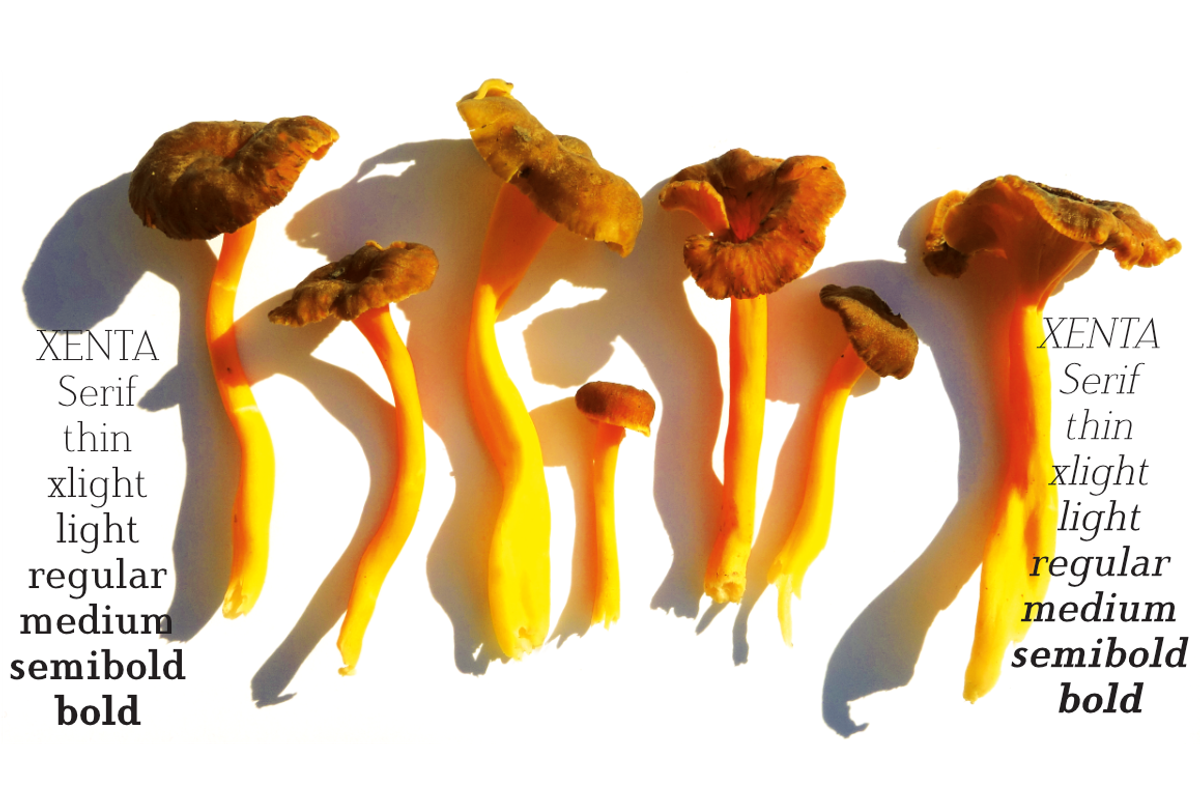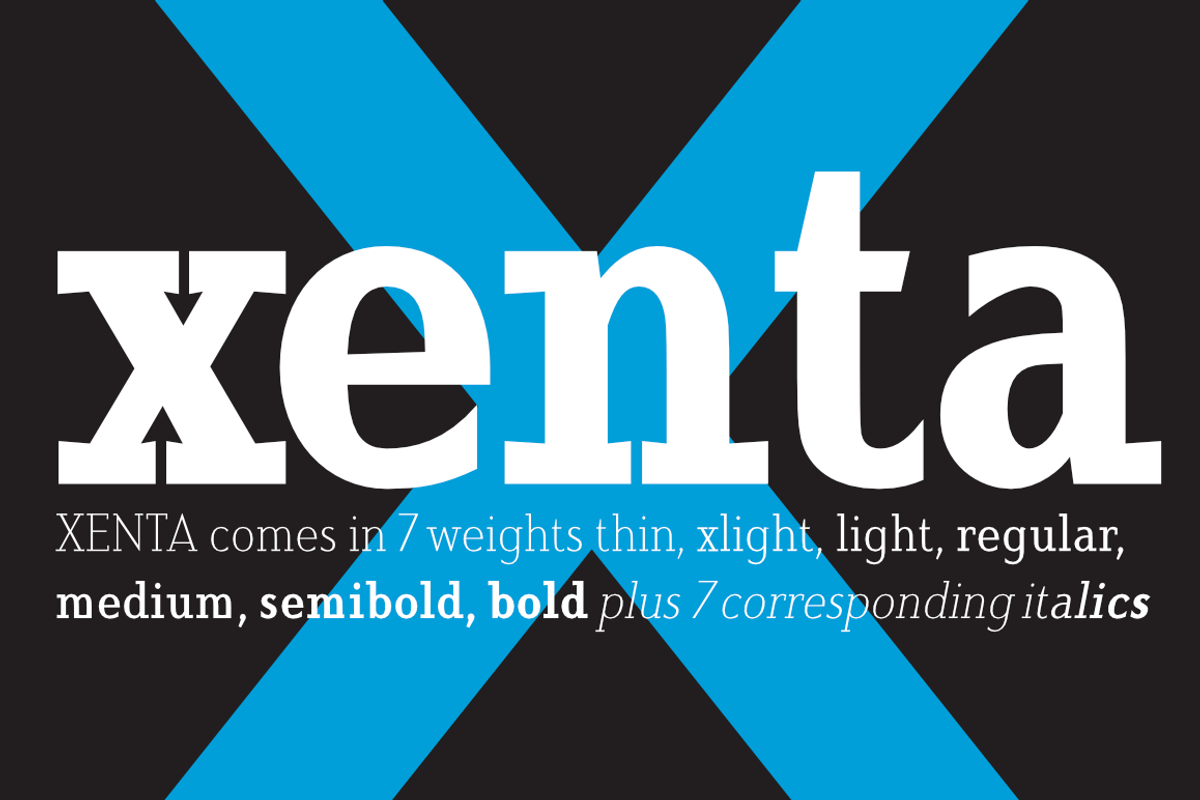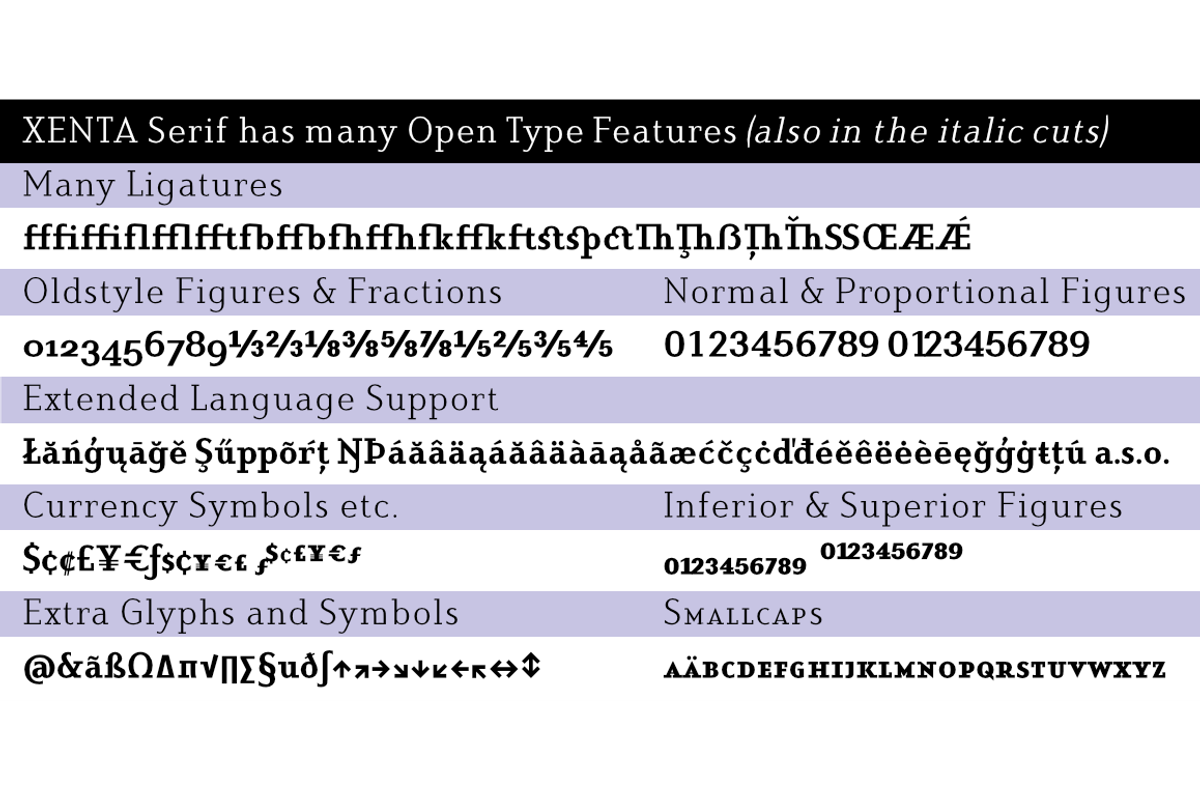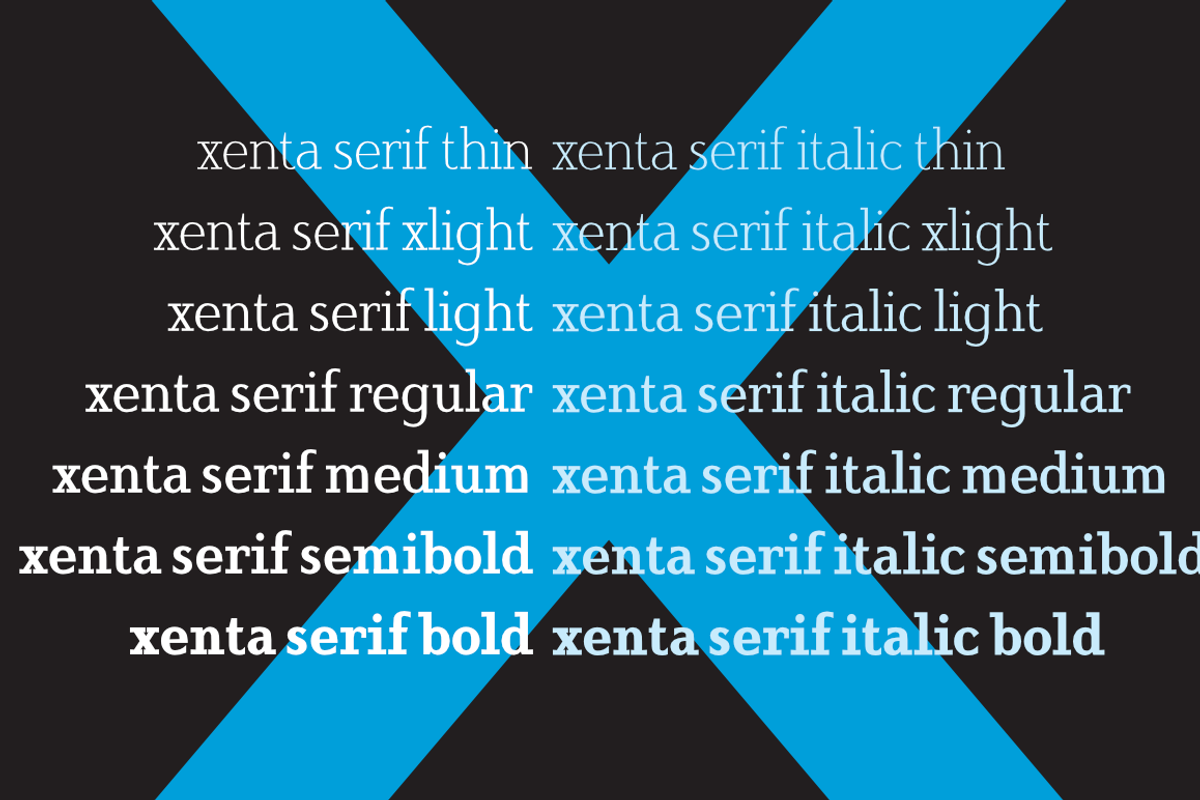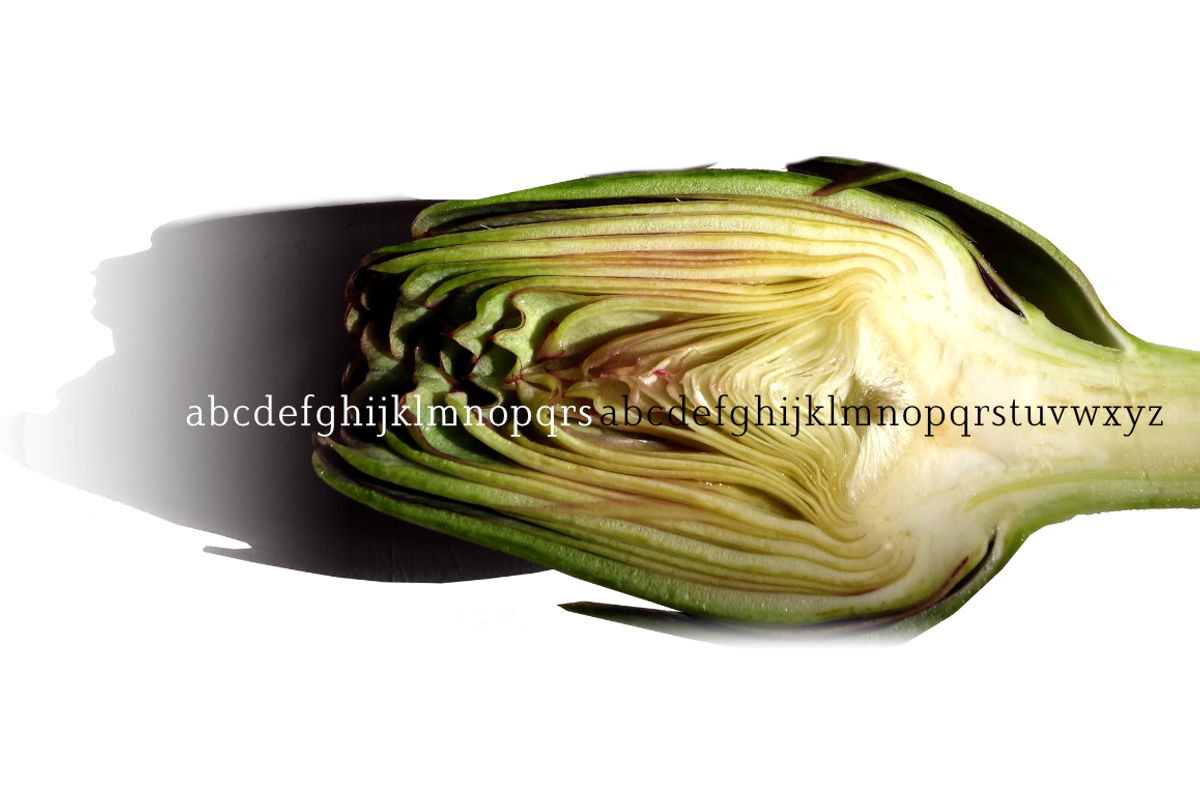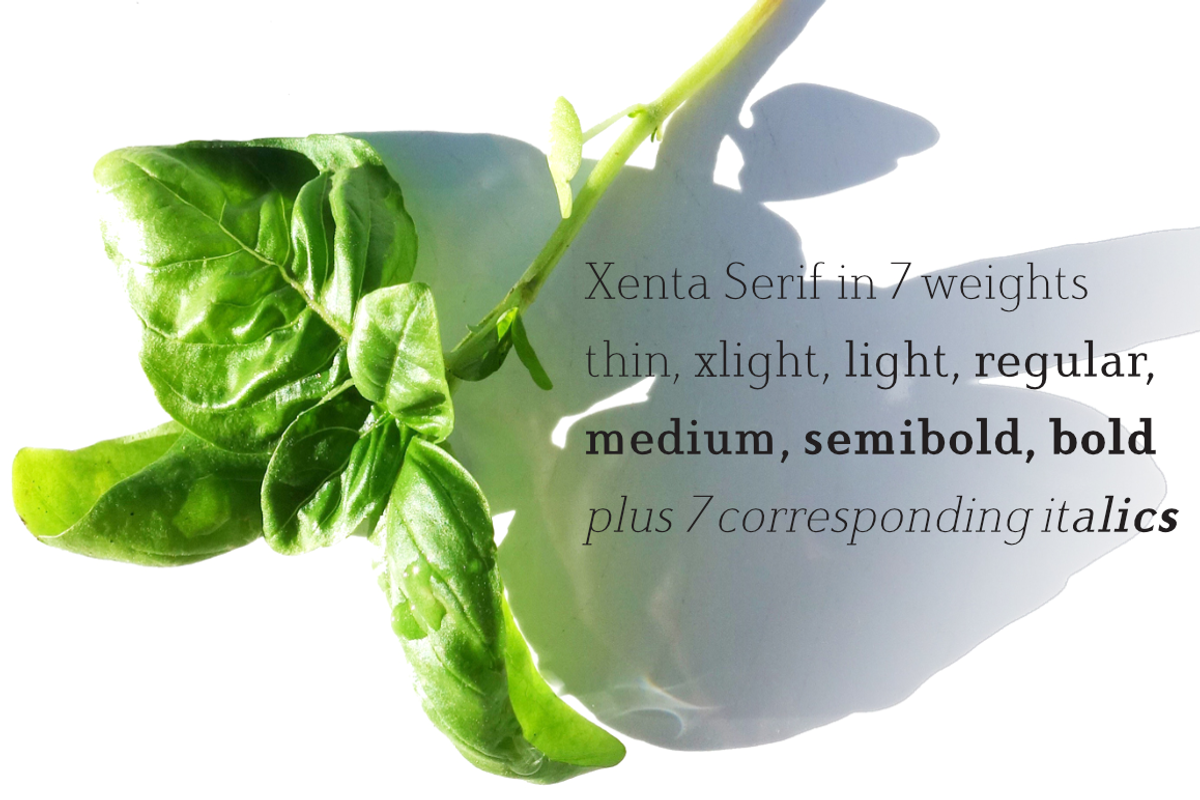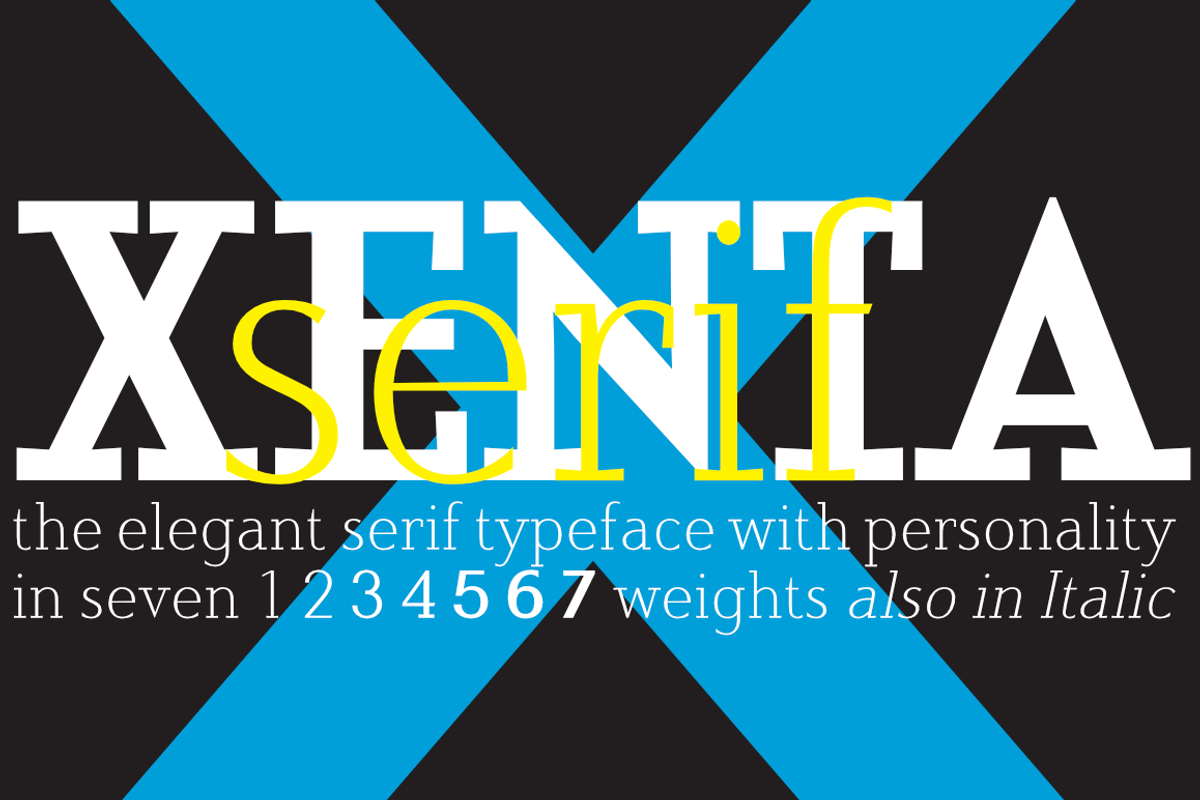
Xenta Serif fonts
»XENTA« Serif are a derivate of my »EXEC« family. I wanted to create a Serif font-family with contrast and extra sturdy serifs. I did this by inclining the serifs upwards, that gives the whole serif cut a very special look. The »XENTA«-Serif-family is well suited for editorial, book text, advertising and packaging, logo, branding, very small text as well as web and screen design. »XENTA«-Serif-family has advanced typographical support including ligatures, small caps, alternate characters, case-sensitive forms, fractions, super- and subscript characters. »XENTA«-Serif-family comes with a range of figures, oldstyle and lining figures, each in tabular and proportional widths. »XENTA«-Serif-family has 758 glyphs and supports Basic-, Western-, and Central-European Latin-based languages including Turkish.